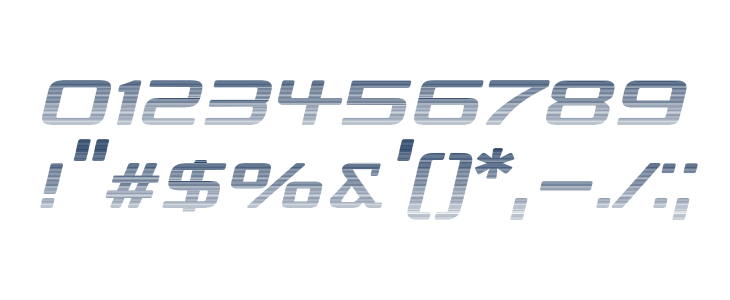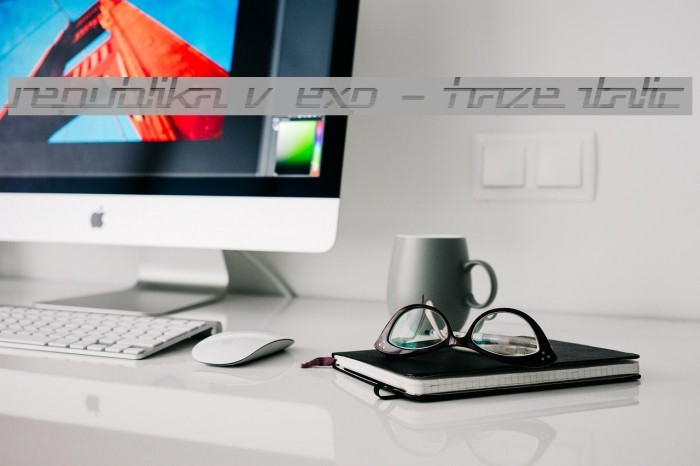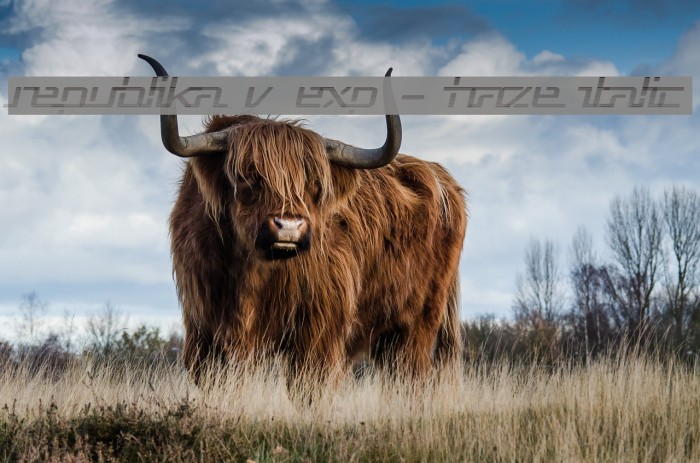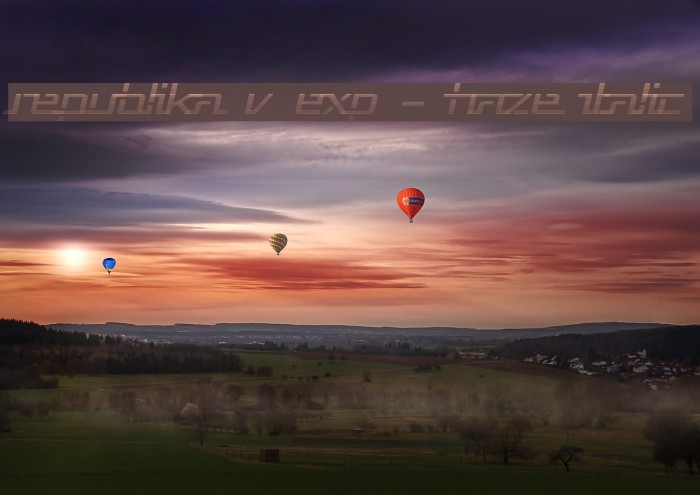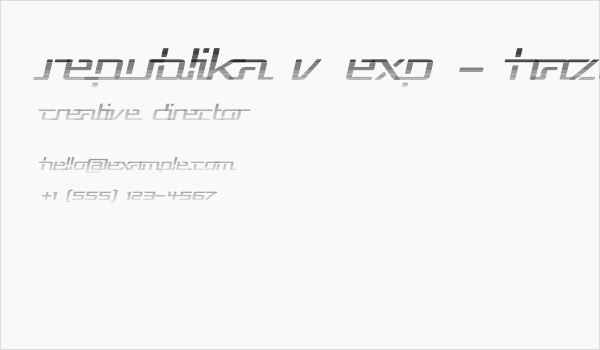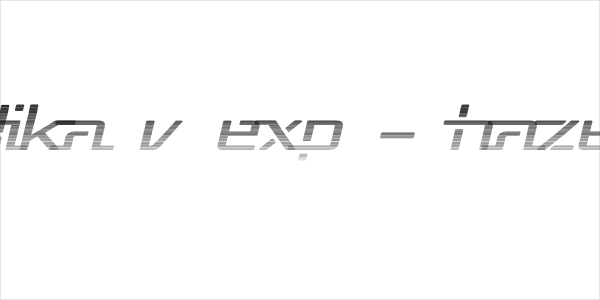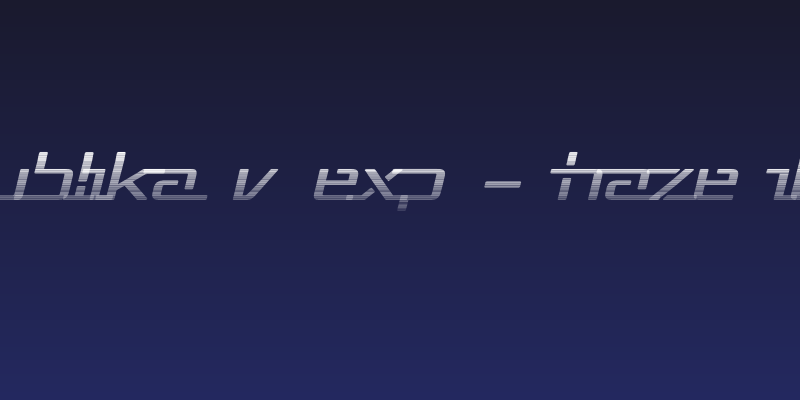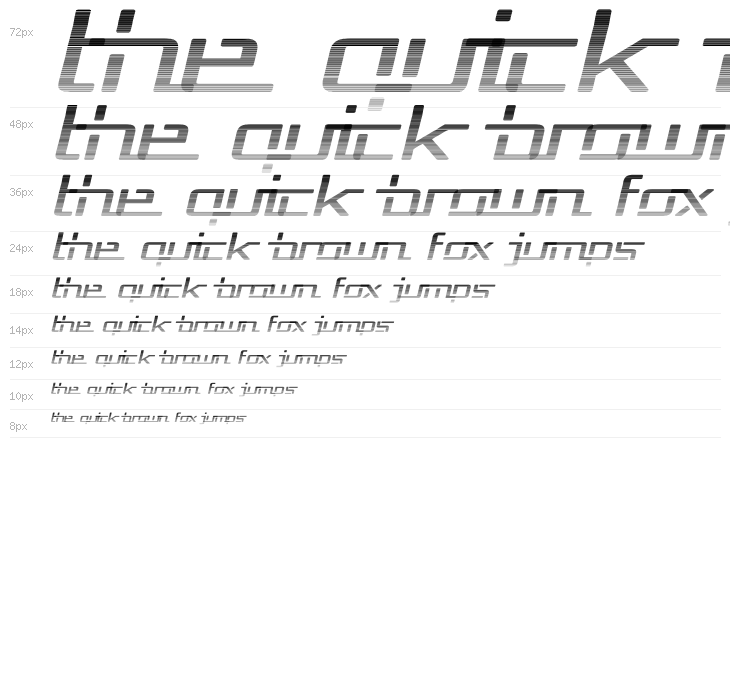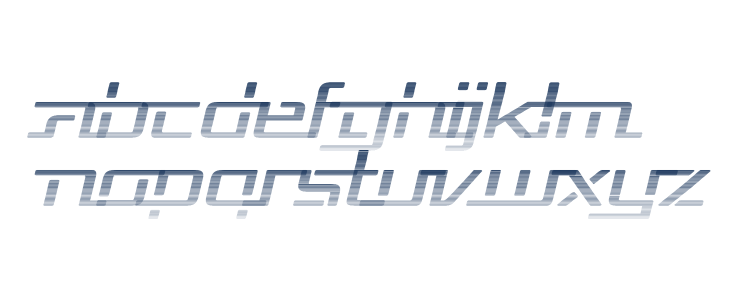
Republika V Exp - Haze Italic Font
Republika V Exp - Haze Italic Description
This font features a futuristic and dynamic design with a distinct italic slant, giving it a sense of motion and speed. The characters are constructed with a combination of sharp angles and smooth curves, creating a sleek and modern appearance. The use of horizontal lines within the characters adds a unique layered effect, enhancing its digital and technological feel. The font maintains a consistent stroke width, providing a uniform and cohesive look across all characters. Its geometric structure and clean lines make it suitable for projects that require a contemporary and innovative touch.
| Use Case | Logos, Headlines, Digital interfaces |
| Proposed Projects | Ideal for technology branding, digital interfaces, video game titles, and futuristic-themed posters. |